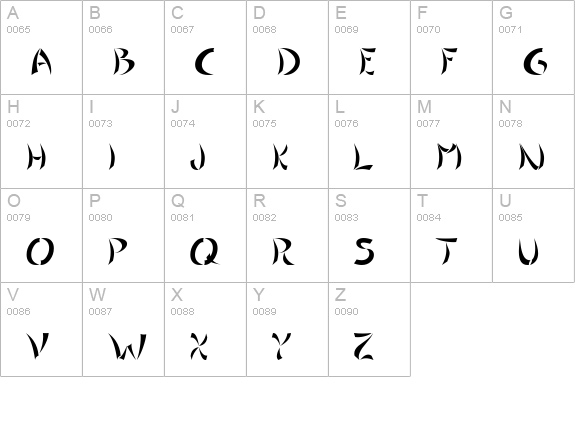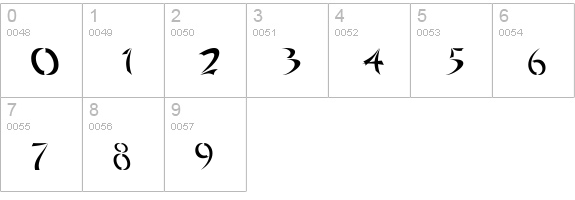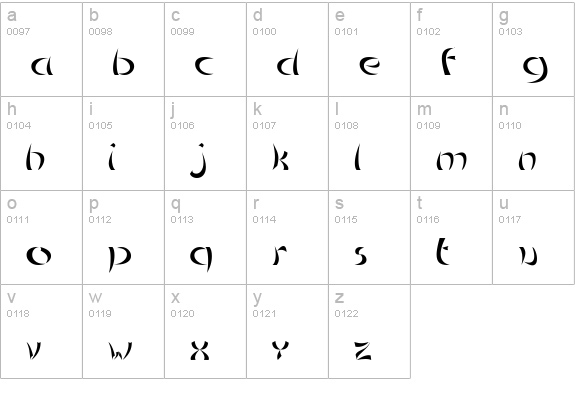
Chinoiseries Tryout Font Details
Chinoiseries Tryout font is a stunning display typeface that combines traditional Chinese calligraphy with a modern twist. Its intricate strokes and elegant curves make it perfect for adding a touch of sophistication to your designs. The font's unique blend of classic and contemporary elements creates a harmonious balance that will captivate the eye. What's even better is that Chinoiseries Tryout font is available for free download at FontsMarket.com. This means you can easily access this exquisite typeface and use it in your projects without any cost. Whether you're working on invitations, branding, or any other creative endeavor, Chinoiseries Tryout font will elevate your work to a whole new level. Don't miss out on the opportunity to enhance your designs with this beautiful and versatile font. Download Chinoiseries Tryout today and let your creativity shine!